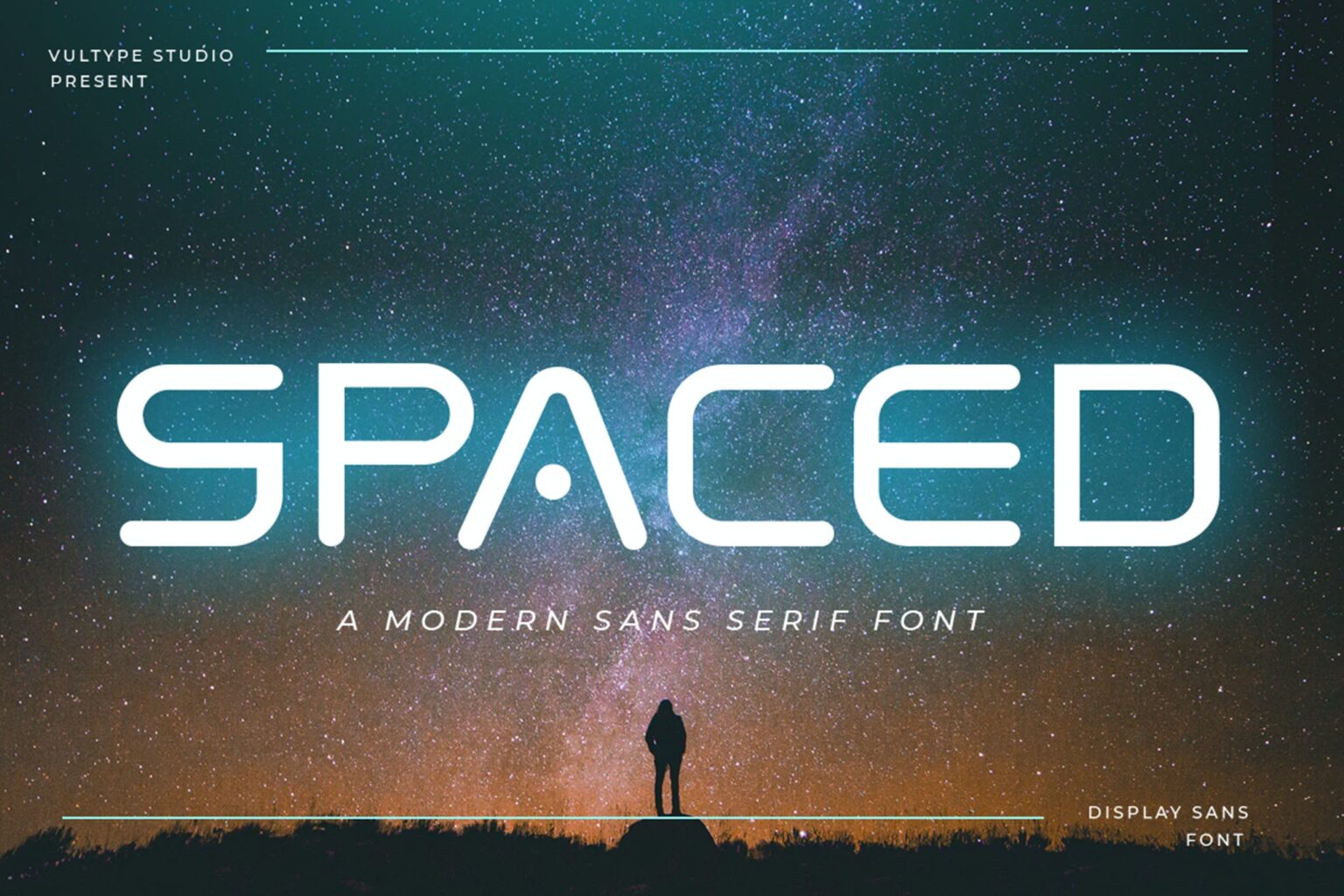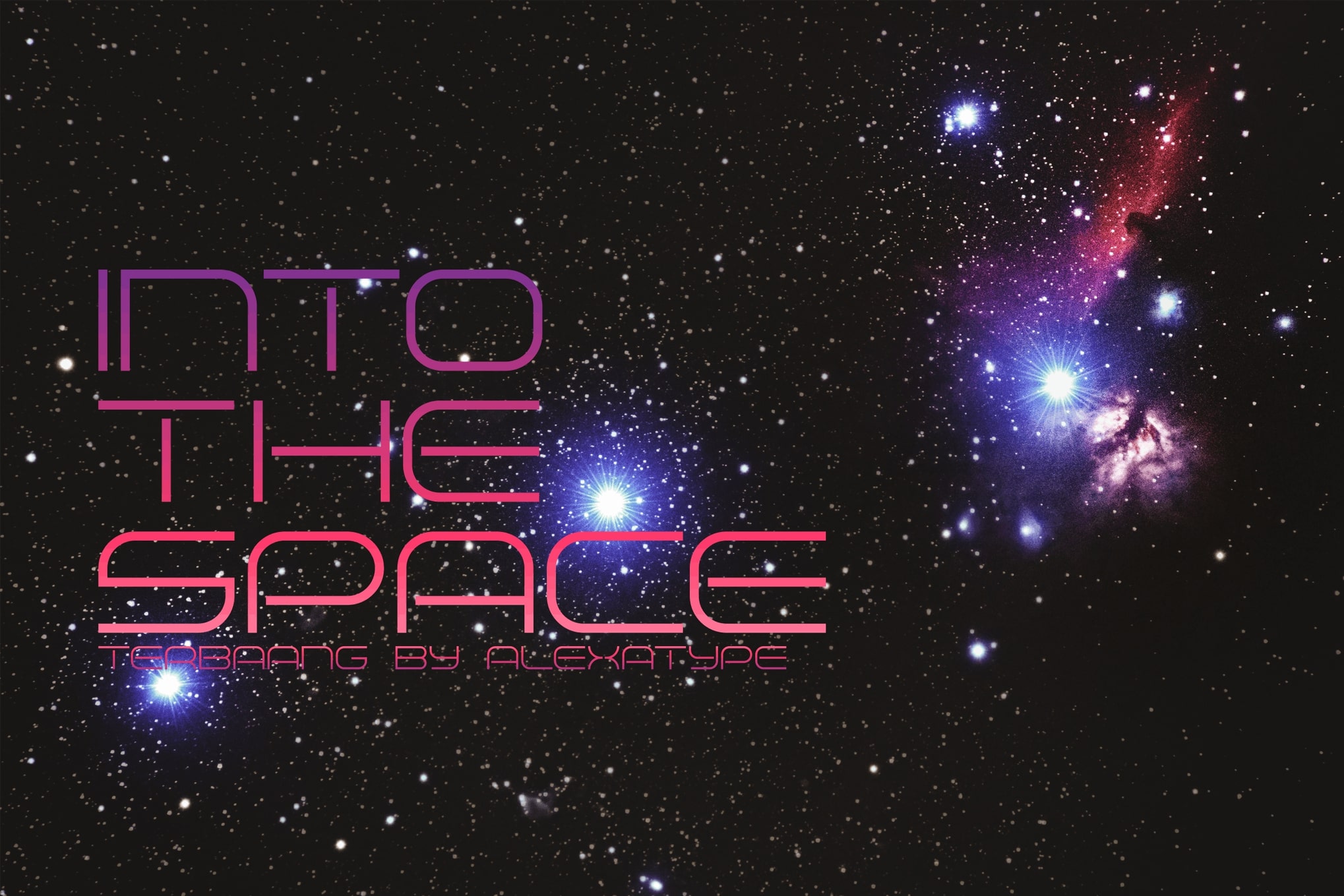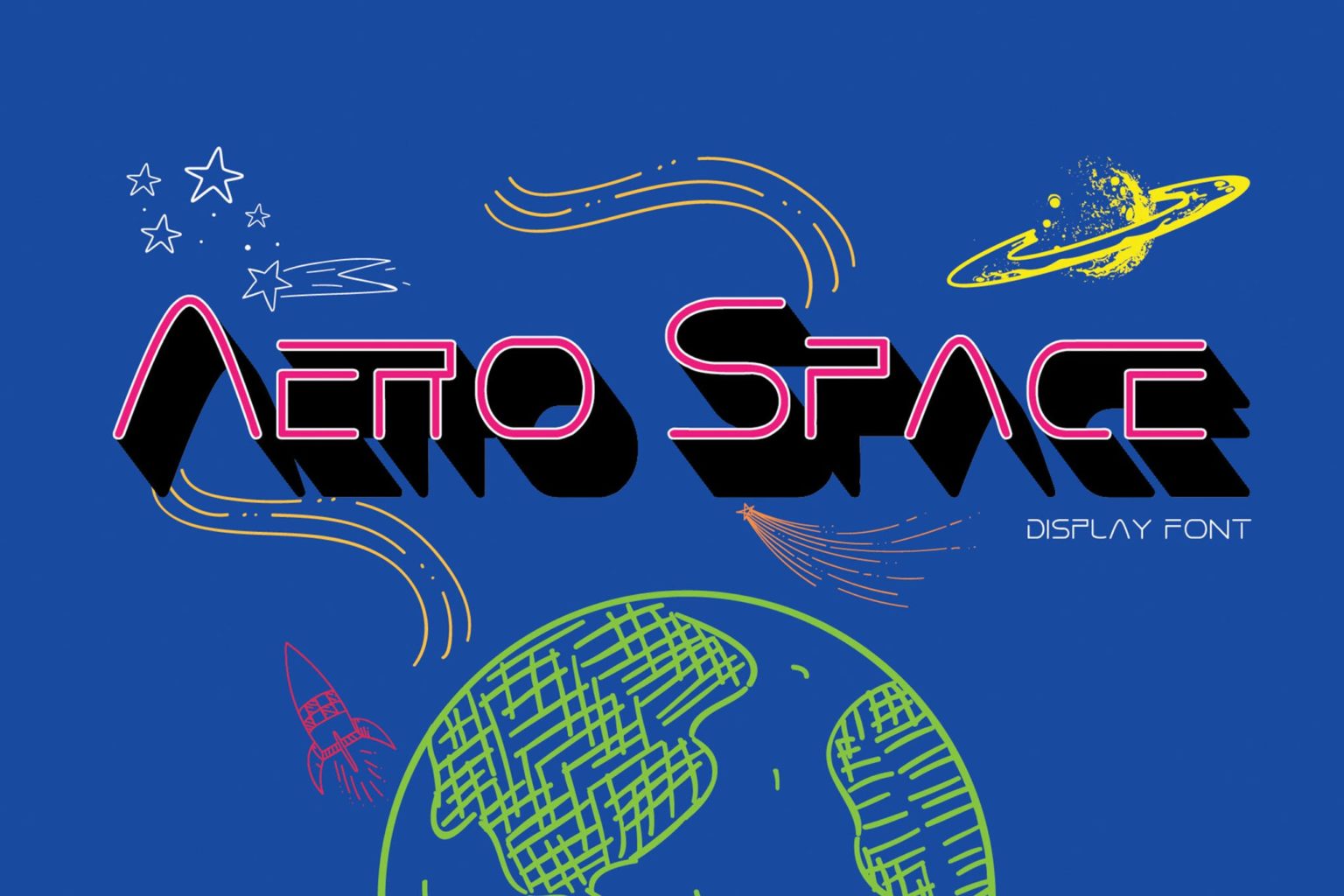
Cool Design Space Fonts References
Cool Design Space Fonts References. Web cricut access fonts: A clean and modern design surrounds the mbf space font like the vastness of space itself.